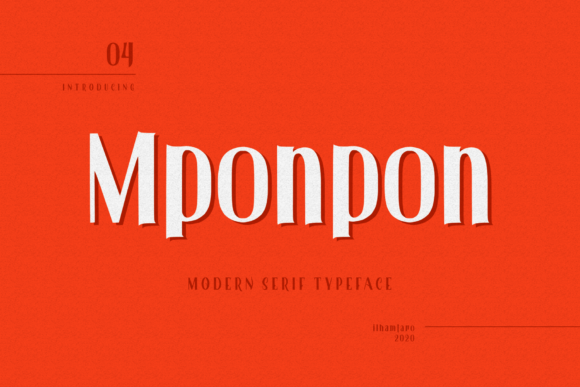
Modern Serif: A Contemporary Take on Timeless Typography
I was recently handed a blank brand board and a brief for a boutique skincare line. The challenge? To create a visual identity that felt both luxurious and approachable. As I opened my font library, Modern Serif caught my eye. It’s one of those fonts that feels familiar yet fresh—like an old friend who’s just gotten a modern haircut.
A Font That Balances Tradition and Trend
Modern Serif is a distinct, elegant serif that blends traditional influences into a contemporary aesthetic. Its well balanced Latin details contain distinctive contrasts, making it feel refined without being stuffy. What stood out to me was how it managed to carry the weight of classic typography while still feeling light enough for digital use.
The serifs are subtle but not too minimal, giving it a sense of craftsmanship. When I tested it on a logo concept for the skincare brand, it brought a level of sophistication that felt right for their target audience—women who value quality but don’t want to be overwhelmed by pretension.
Testing Modern Serif in Real Branding Work
I used Modern Serif across several branding elements. On a packaging mockup, it looked great on product labels, where its clarity and elegance helped the brand name stand out without shouting. For the business card design, the font maintained readability even at smaller sizes, which is always a plus when working with physical print.
On social media graphics, Modern Serif worked well as a headline font. It added a touch of class to Instagram posts and Facebook ads, helping the brand feel more premium. However, I noticed that using it for long body text wasn’t ideal—it started to feel a bit heavy and less scannable than I would have liked.
For the website header, I paired Modern Serif with a clean sans-serif font for body copy. This contrast helped guide the viewer’s eye from the bold headline to the supporting content, reinforcing the brand’s message without confusion.
When and Where to Use Modern Serif
Modern Serif shines best as a display font or headline font. It’s perfect for logos, taglines, hero sections, and any place where you need to make a statement. Its distinctive contrasts can help elevate short phrases or key messages, making them more memorable.
However, it might not be the best choice for long-form content, small-sized text, or highly formal corporate branding. In these cases, a more legible and neutral typeface may serve the project better. That said, if you're looking for something that adds character to your brand identity without sacrificing professionalism, Modern Serif is a strong contender.
I found it especially useful for creative studios, handmade shops, and boutique brands. It gives a sense of authenticity and attention to detail, which resonates well with audiences who appreciate thoughtful design.
Font Pairing and Practical Considerations
When pairing Modern Serif with other fonts, I found that combining it with a modern sans-serif like Montserrat or Lato created a nice balance. The contrast between the serif and sans-serif elements gave the design a dynamic feel while maintaining readability.
For a more decorative look, pairing it with a script font could add a personal touch, though I’d recommend keeping it subtle to avoid overwhelming the design. If you’re working on a multilingual project, it's worth checking whether Modern Serif supports all the languages you'll be using.
Before committing to Modern Serif in final client work, I recommend testing it across different mediums and sizes. See how it looks on a shop sign, printed card, or web banner. Small variations in context can affect how the font performs.
Overall, Modern Serif is a versatile and stylish font that brings a unique blend of tradition and modernity to any design project. Whether you're working on a logo, packaging, or social media layout, it’s worth considering for its ability to enhance brand perception and visual appeal.